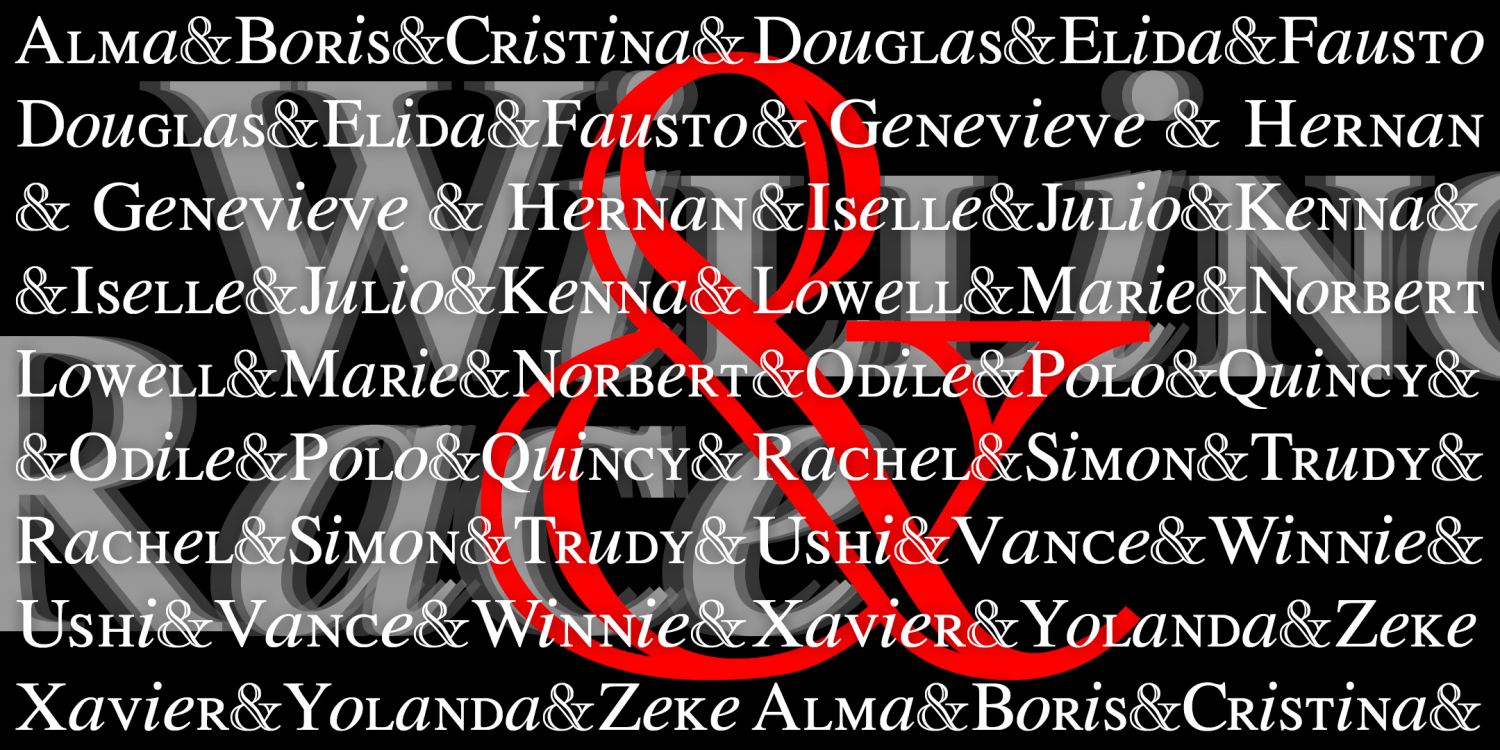
Willing Race
About Willing Race
WILLING RACE was inspired by the opening credits of the TV show Will & Grace, originally designed by Number Seventeen. Like those, I’ve mixed large and small caps with roman and italic lowercase, all inspired by Times Roman.